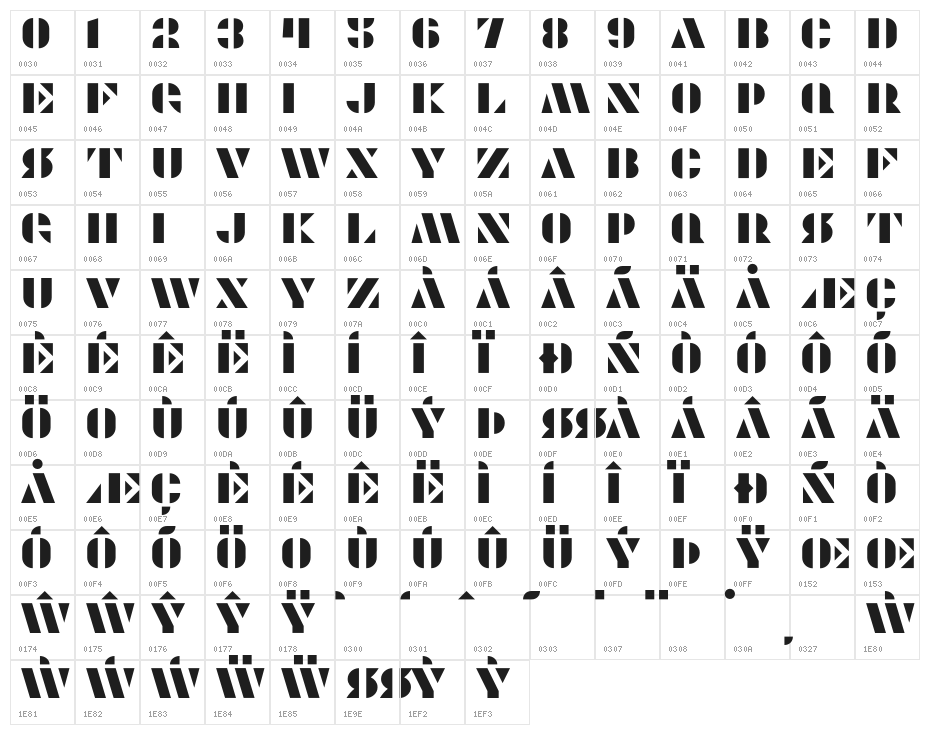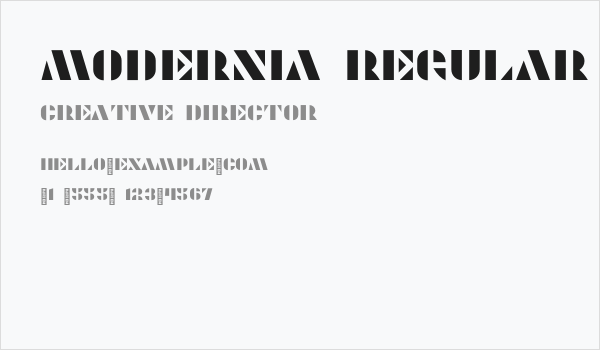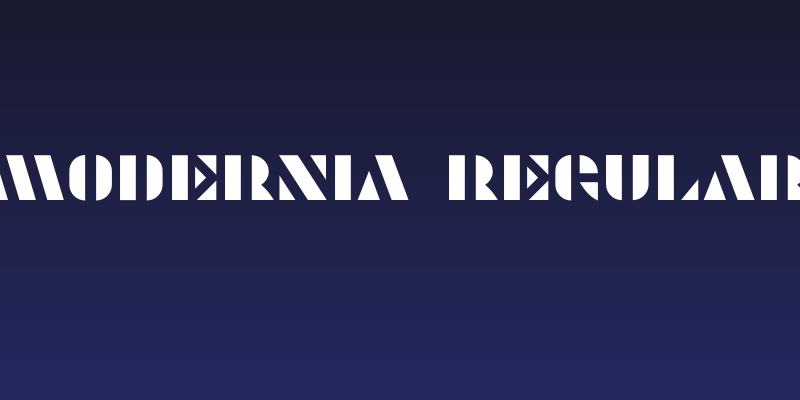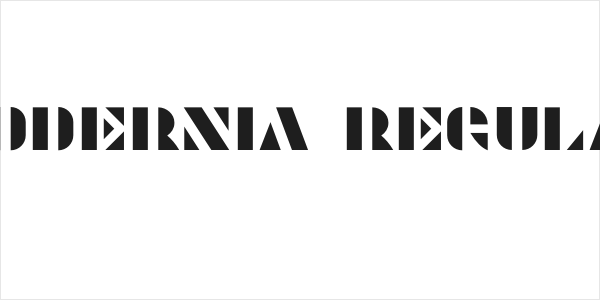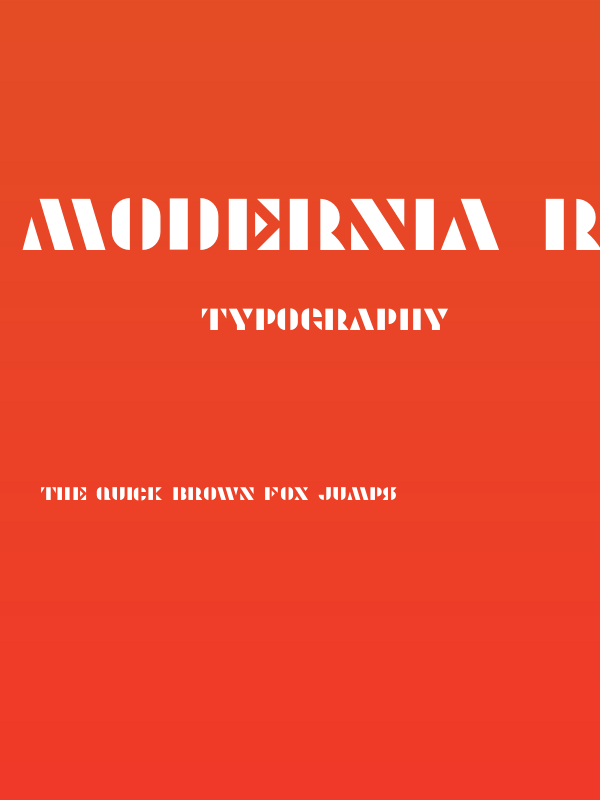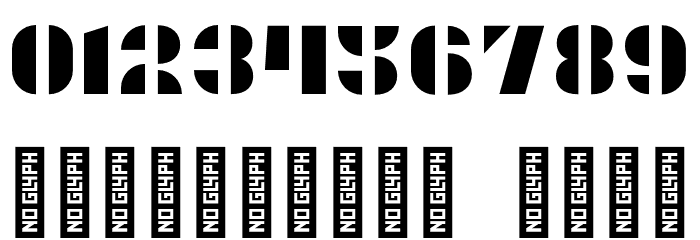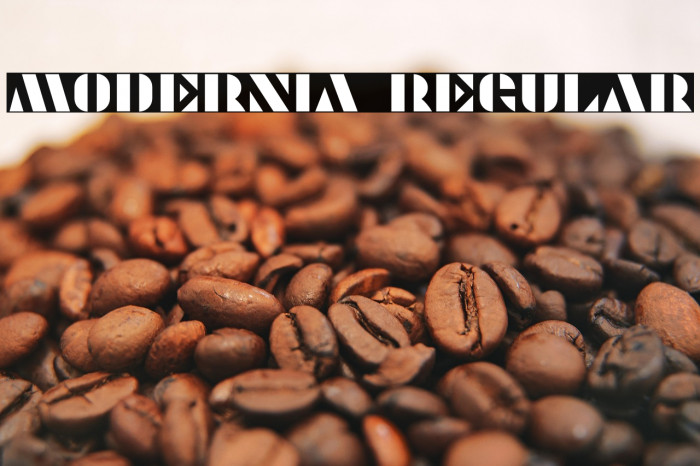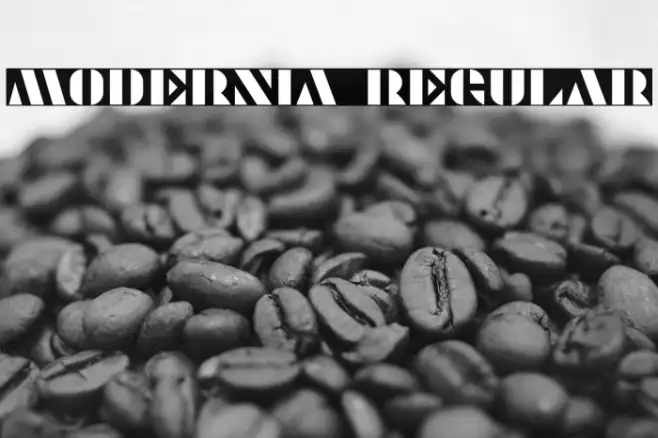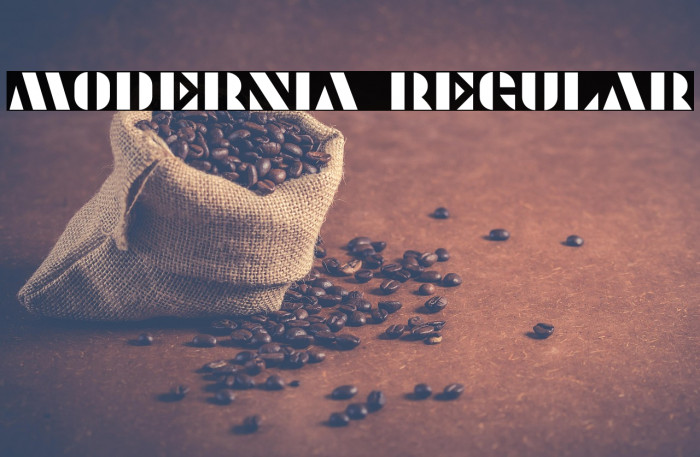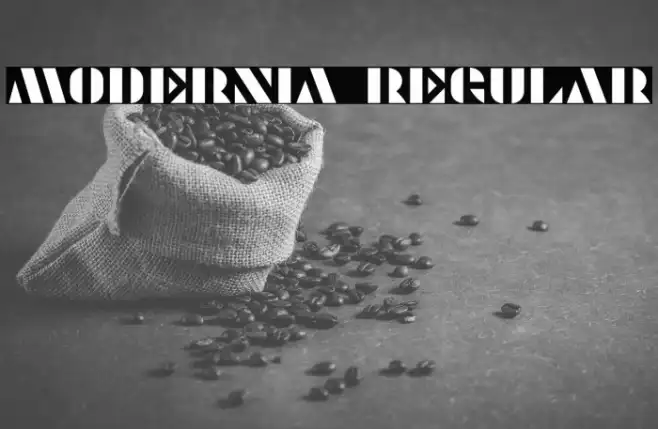
Modernia Regular Font
Modernia Regular Description
This font features a bold, geometric design with a modern and striking appearance. The characters are composed of solid, angular shapes that create a sense of movement and energy. The uppercase letters are particularly distinctive, with sharp angles and a strong presence. The numbers follow the same bold style, ensuring consistency across all characters. This font is ideal for making a statement and drawing attention, perfect for projects that require a contemporary and impactful look.
| Proposed Projects | Ideal for branding, posters, headlines, and any design that requires a bold and modern aesthetic. |